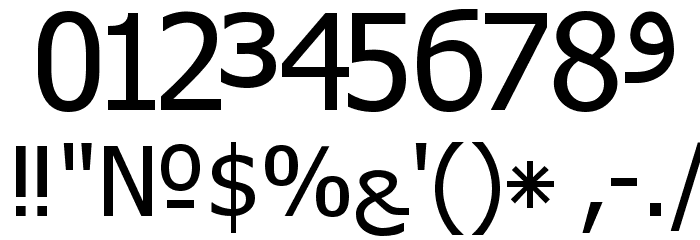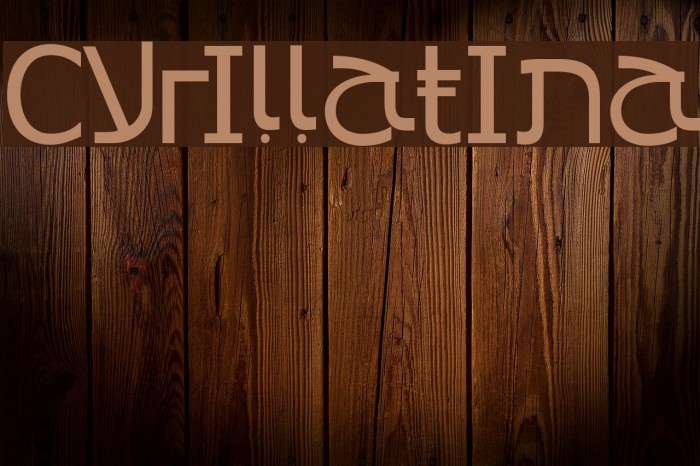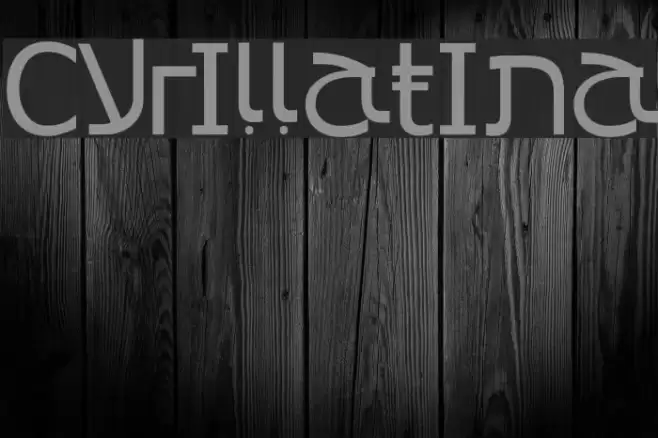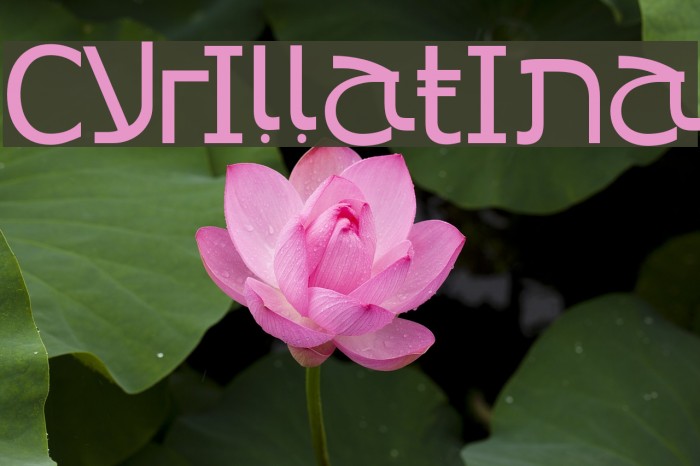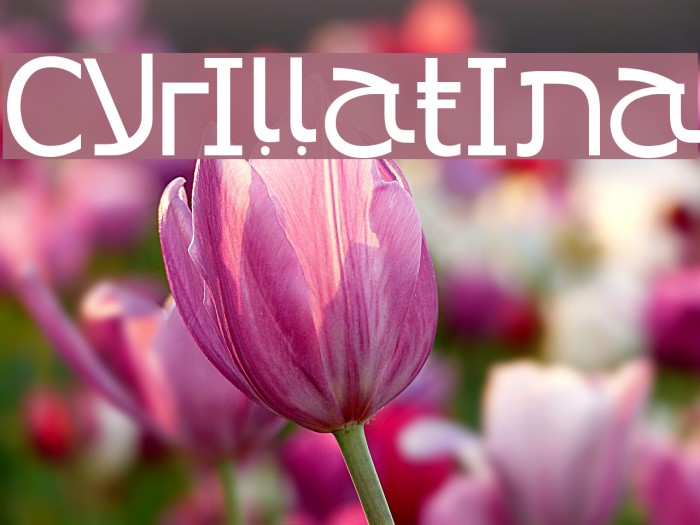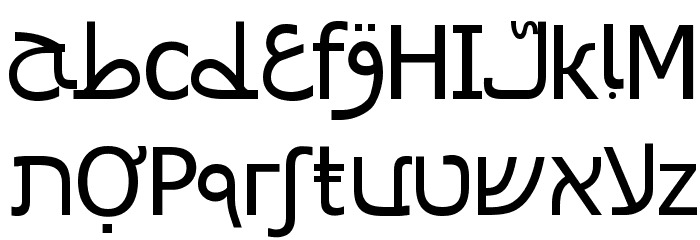
Cyrillatina Font
Cyrillatina Description
This font presents a unique blend of geometric and modern design elements, characterized by its bold and assertive appearance. The letters are crafted with a distinct angularity, featuring sharp edges and clean lines that convey a sense of precision and clarity. The uppercase letters exhibit a uniform height, while the lowercase letters maintain a consistent baseline, enhancing readability. The numerals are designed with a similar geometric style, ensuring they integrate seamlessly with the alphabetic characters. Special characters are thoughtfully incorporated, maintaining the font's cohesive aesthetic. Overall, this font's design is both striking and versatile, making it suitable for a variety of applications.